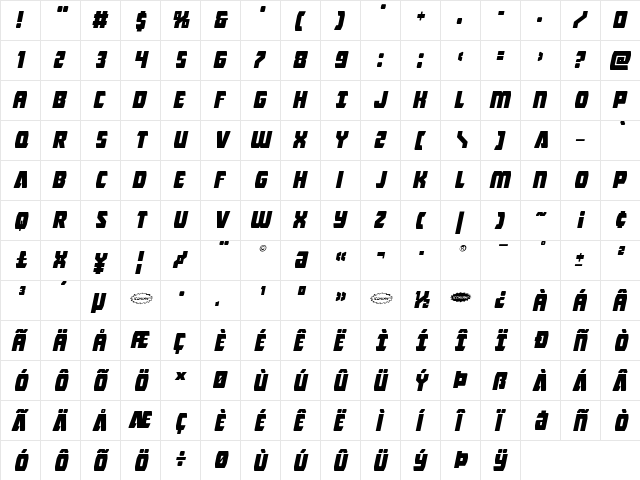
Intergalactic Italic Italic
Design Context for Intergalactic Italic Typeface
Intergalactic Italic offers clean, dependable letterforms without strong stylistic allegiance, making it a practical choice for designers who need flexibility. Its italic angle brings a sense of urgency and motion to the letterforms.
Pro Tip: Try Intergalactic Italic for annotation and caption copy alongside an upright companion — the contrast in angle creates a dynamic but ordered typographic system.